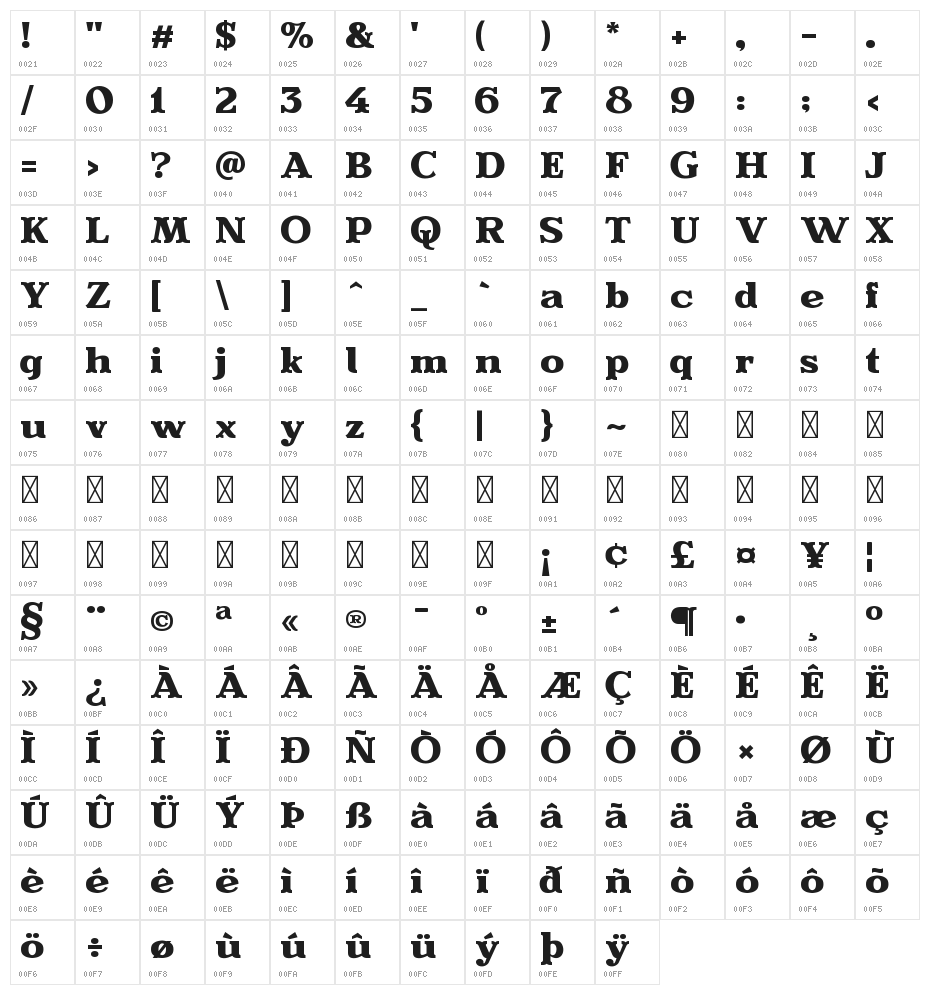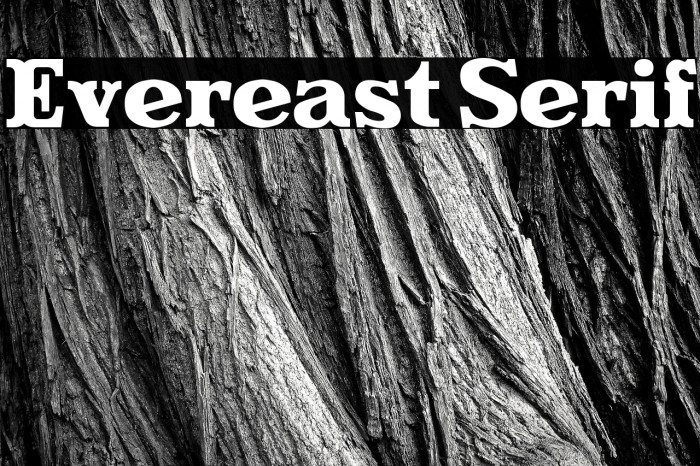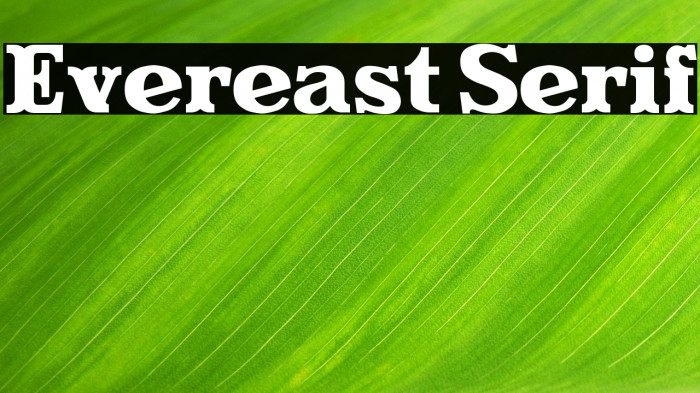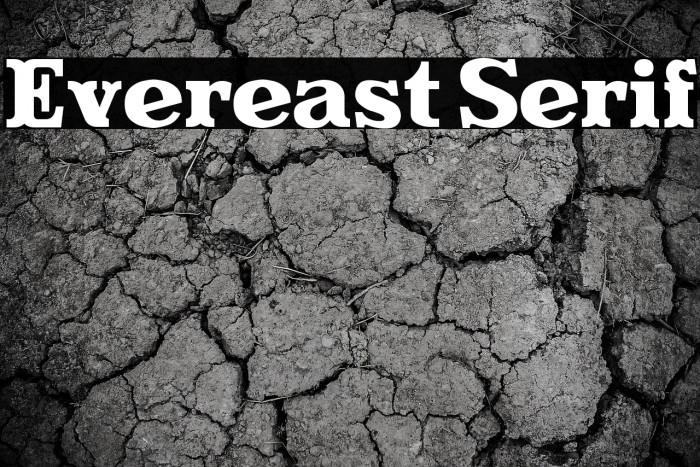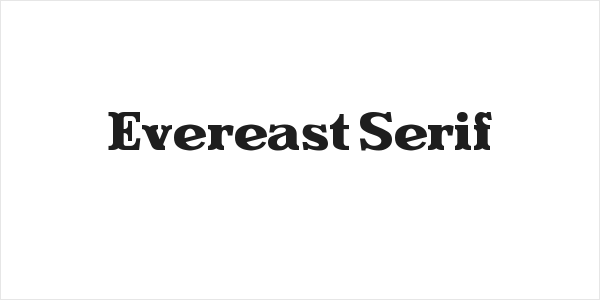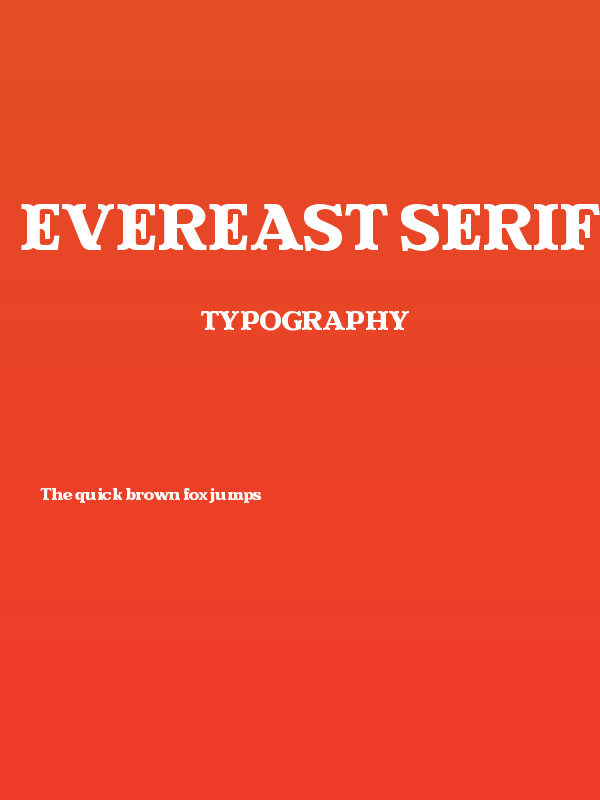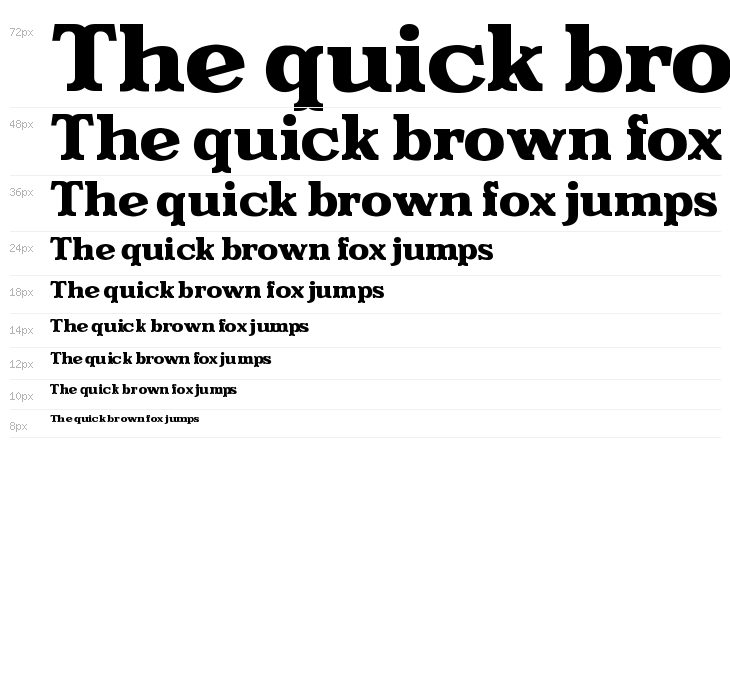
Evereast Serif Font
Evereast Serif Description
This font exhibits a robust and bold serif style, characterized by its thick strokes and pronounced serifs. The uppercase letters have a strong presence with a traditional serif structure, while the lowercase letters maintain a consistent weight, offering a harmonious balance. The numerals are equally bold, ensuring readability and impact. Special characters are designed with the same boldness, making them stand out. The overall design is classic yet powerful, suitable for making a statement.
| Use Case | Headlines, Logos, Editorial |
| Proposed Projects | Ideal for headlines, branding, and editorial design where a strong serif presence is needed. |